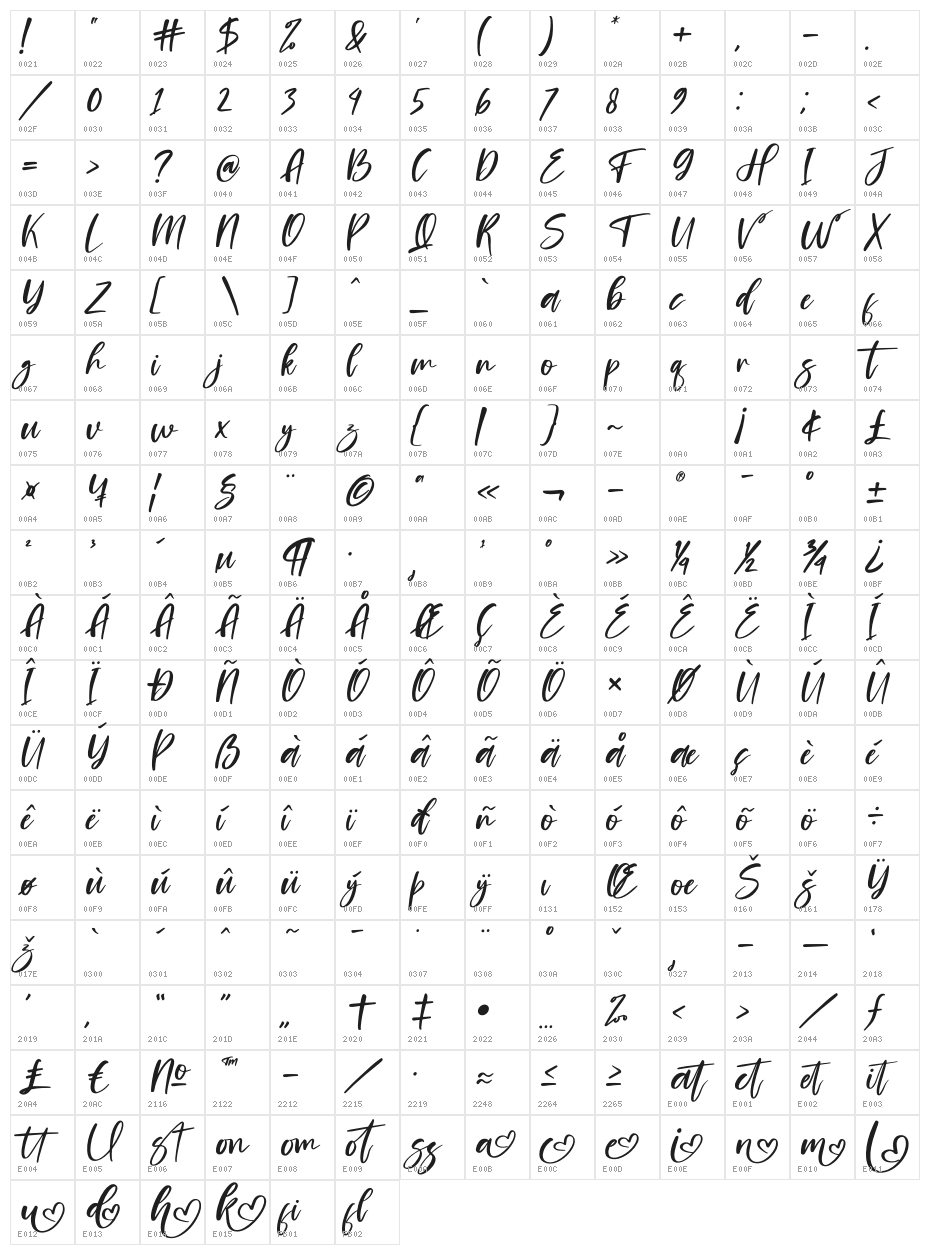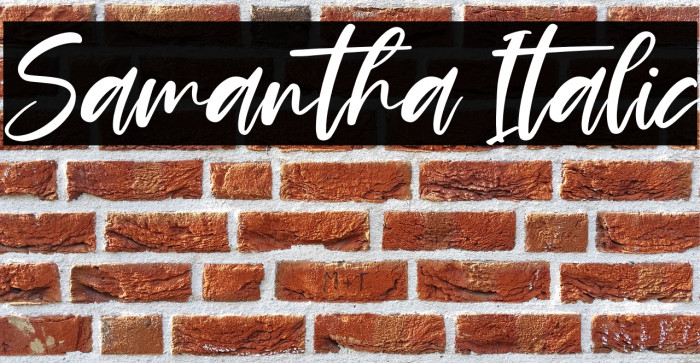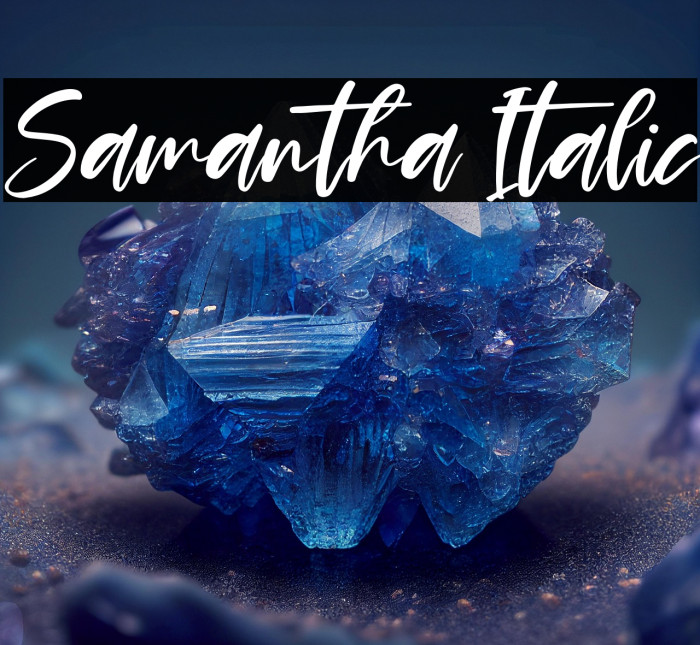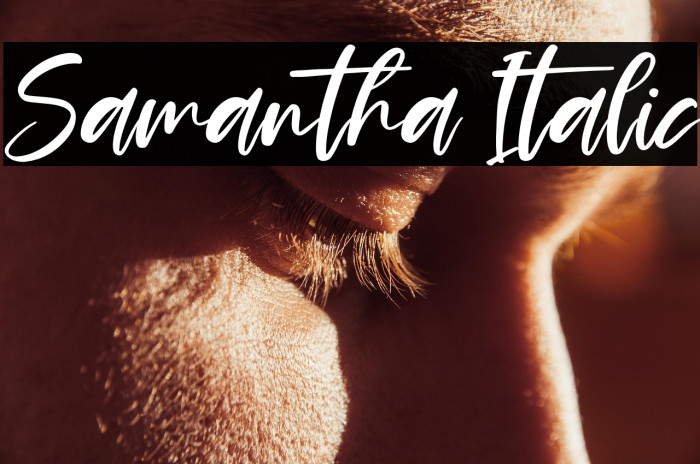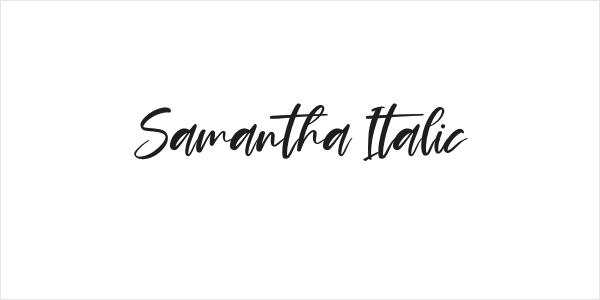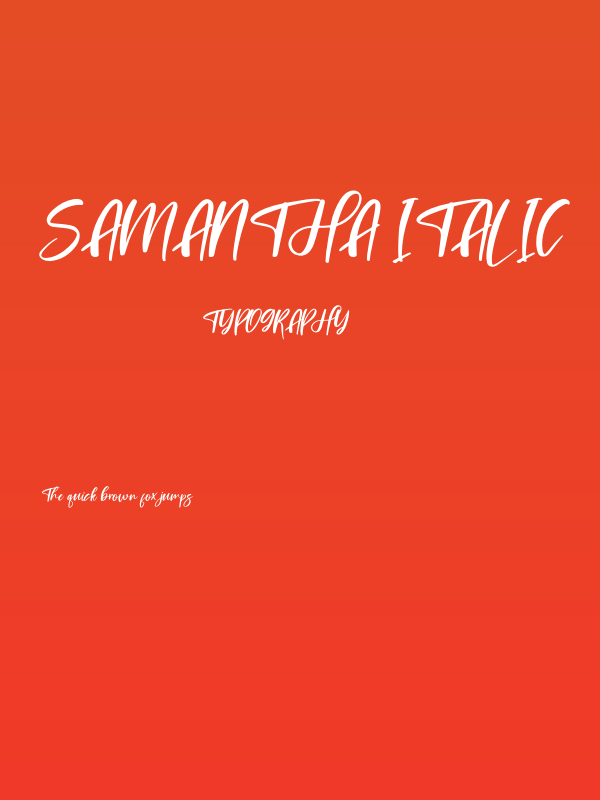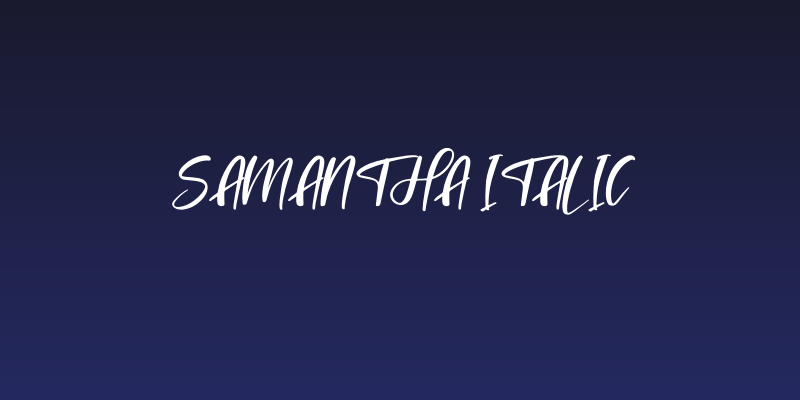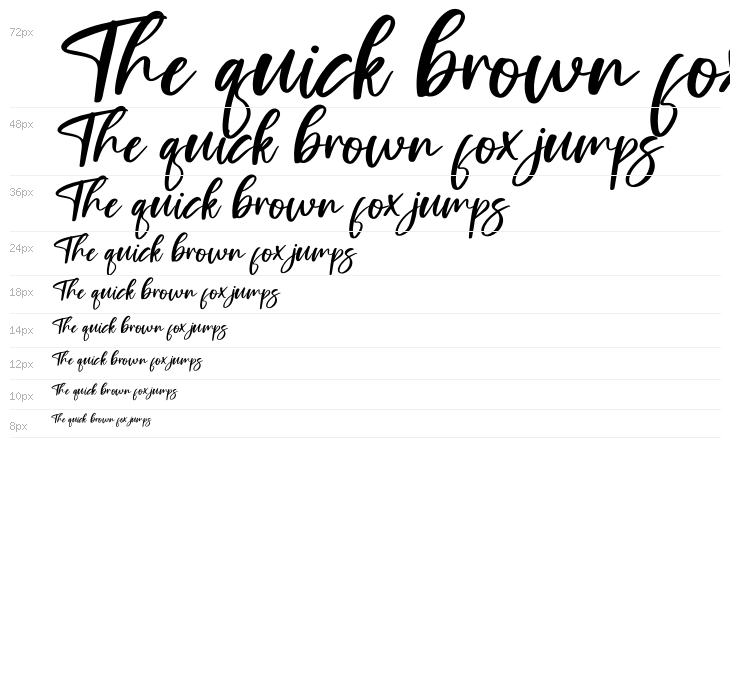
Samantha Italic Font
Samantha Italic Description
This font features a flowing, cursive style with a modern twist, characterized by its elegant and fluid strokes. The letters are connected in a seamless manner, giving it a handwritten appearance that is both sophisticated and approachable. The uppercase letters are bold and prominent, while the lowercase letters maintain a consistent flow, enhancing readability. The numerals and special characters are designed to match the overall aesthetic, ensuring a cohesive look across all text elements. This font is perfect for projects that require a personal touch, such as invitations, greeting cards, and branding materials.